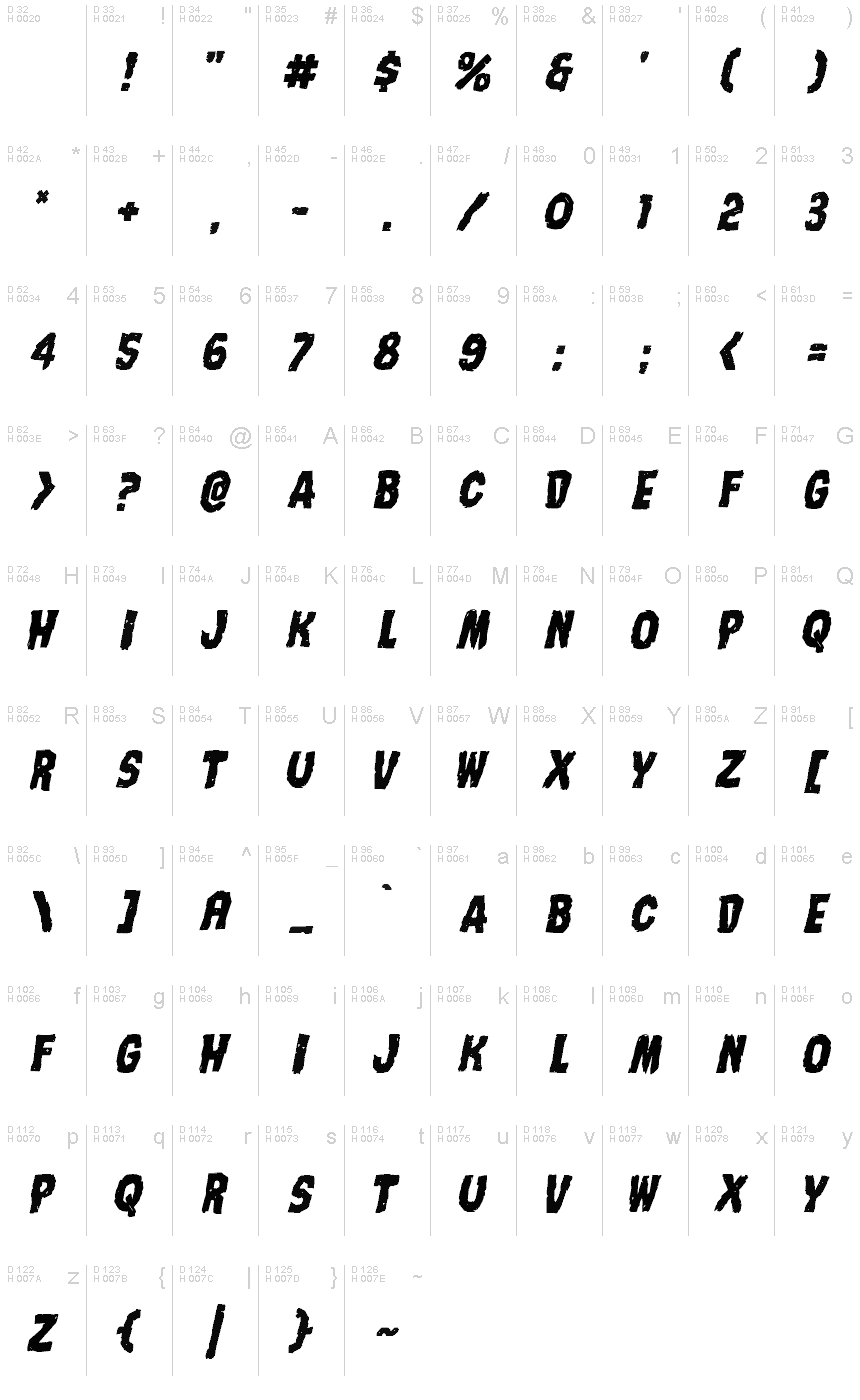
"Nightmare Alley" is a striking and unsettling font that immediately commands attention. The staggered, italicized letters evoke a sense of disquiet, with their jagged edges and uneven baseline hinting at a dark, eerie atmosphere.
This condensed display font, designed by Daniel Zadorozny, exudes a bold, intimidating presence, making it an ideal choice for horror-themed projects, movie posters, or any design work that seeks to convey a sense of foreboding and suspense.
Its versatility extends beyond the macabre, as "Nightmare Alley" could also lend an impactful, attention-grabbing aesthetic to branding, packaging, and editorial layouts.
Prezentacja i próbka wizualna czcionki Nightmare Alley Staggered Italic
Mapa znaków czcionki Nightmare Alley Staggered Italic
Mapa znaków czcionki Nightmare Alley Staggered Italic: Podstawowy łaciński, strona 1
Glify czcionki Nightmare Alley Staggered Italic — Podstawowy łaciński, strona 1